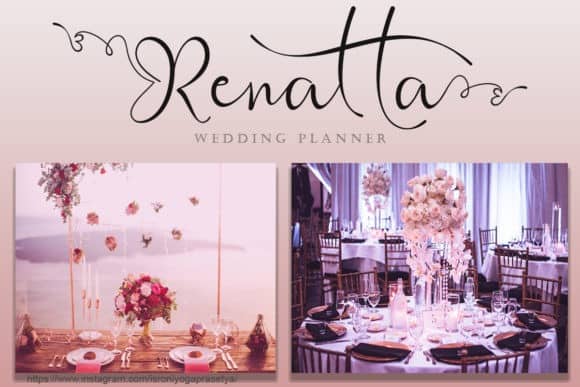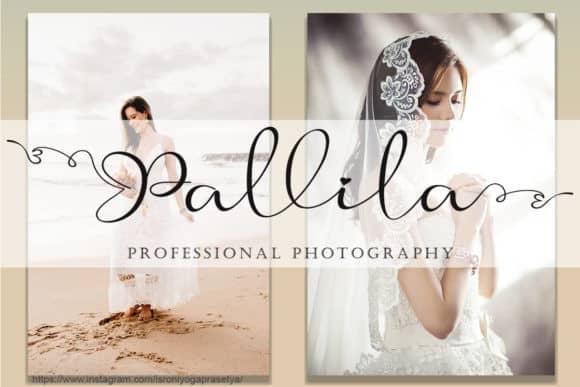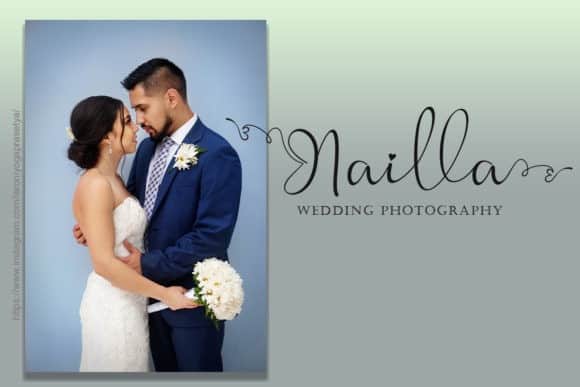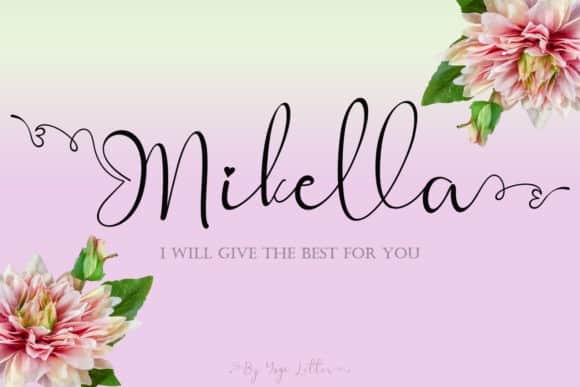
Mikella Calligraphy Font
Mikella Calligraphy Font is elegant, classy, readable, stylish, catchy and easy to use. Made from font designer named yogaletter6. It’s a modern handwritten font. This font is very beautiful and elegant. Besides being elegant and beautiful, this font is also very unique and can enhance your work. It is suitable for wedding design, be it branding, headings, invitations, signatures, labels, logos, and much more.